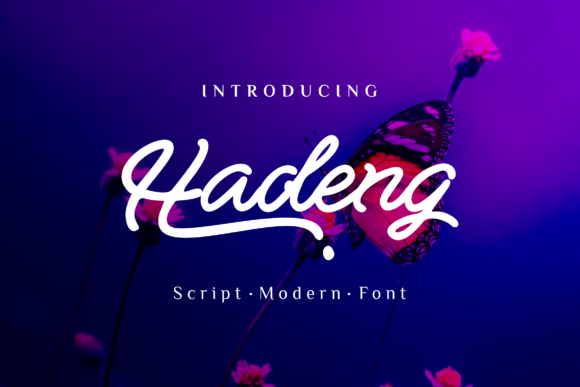
Unleash Your Creativity with the Timeless Charm of Hadeng Font
Do you remember the moment when you stumbled upon the perfect font that perfectly captured the essence of your creative vision? For designers, this moment is often a game-changer. It’s the spark that ignites a new project, a new idea, or a new brand identity. And if you’re looking for that special something, you might want to consider the Hadeng Font – a vintage and stylish display font that’s sure to make your designs stand out.
Hadeng Font is more than just a font; it’s a statement piece that adds a touch of sophistication and elegance to any branding project. From logos to t-shirt printing, and even esports, this versatile font is perfect for designers who want to make a lasting impression. Its unique blend of vintage and modern elements makes it a valuable addition to any design arsenal.
- Unique Characteristics: The Hadeng Font features a unique blend of modern and traditional design elements, with a distinctive style that is both elegant and sophisticated.
Hadeng Font Review
Overall, I’m impressed with the Hadeng Font. It has a unique and modern look that can add a touch of sophistication to any design. Here are some of its strengths: ✨
- Distinctive letterforms: The font’s distinctive letterforms make it stand out from more traditional fonts.
- High legibility: Despite its unique design, Hadeng is still highly legible, making it suitable for body text.
- Great for headings: The font’s bold lines and geometric shapes make it perfect for headings and titles.
However, like any font, Hadeng has its limitations: ⚠️
- Limited support for special characters: Hadeng’s unique design can make it challenging to support special characters, such as accented letters or symbols.
- May not be suitable for small text: Due to its bold lines and geometric shapes, Hadeng may not be the best choice for small text, as it can become difficult to read.
Overall, I think Hadeng is a great font for designers looking to add a modern touch to their work. While it may have some limitations, its unique design and high legibility make it a great choice for headings and titles. Just be mindful of its limitations, and you’ll be able to get the most out of this font.
Alternatives to Hadeng Font
Pacifico is a beautiful, elegant font ideal for creating a romantic and luxurious atmosphere. It is a great choice for wedding invitations, greeting cards, and other special occasions. Pacifico is a sans-serif font with a unique touch, giving it a modern twist. Compared to Hadeng Font, Pacifico has a more refined and sophisticated look, making it perfect for high-end designs.
Great Vibes is a modern, cursive font that exudes a sense of playfulness and fun. It is perfect for creating a lively and energetic atmosphere, making it ideal for children’s products, party invitations, and social media graphics. Great Vibes has a more casual and relaxed feel compared to Hadeng Font, which is more formal and elegant.